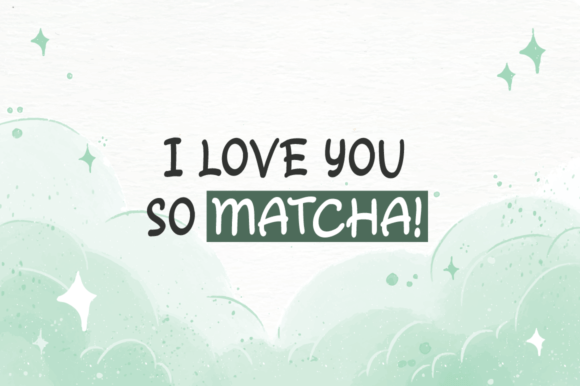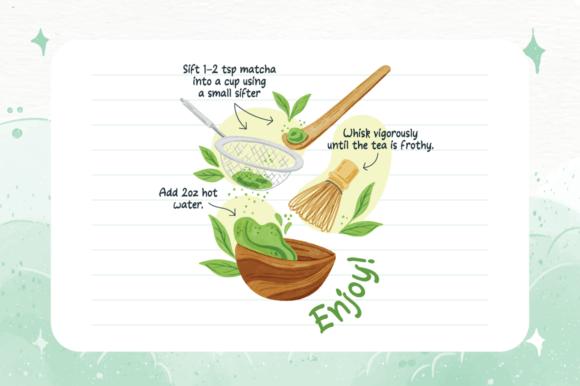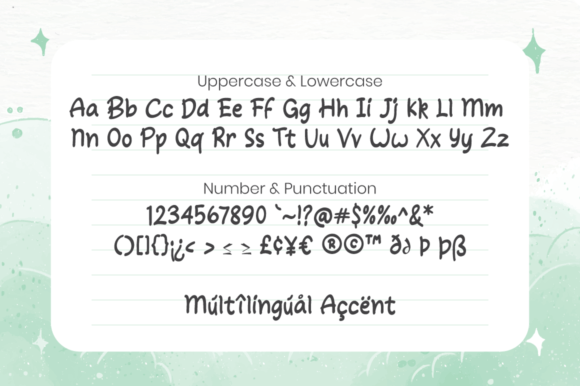
Introduction to Holland Matcha Font
Holland Matcha is a sweet and friendly handwritten font.
Key Features of Holland Matcha Font
Why Choose Holland Matcha Font?
Holland Matcha Font offers exceptional quality and versatility, making it a valuable addition to your design toolkit. Whether you’re creating for personal projects or commercial use, Holland Matcha Font delivers professional results.